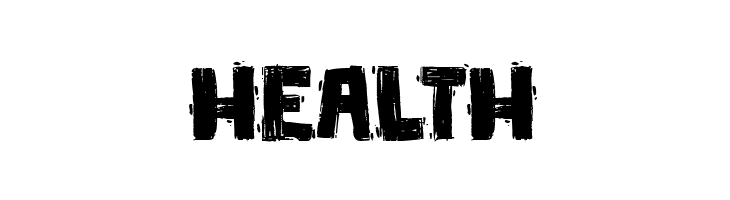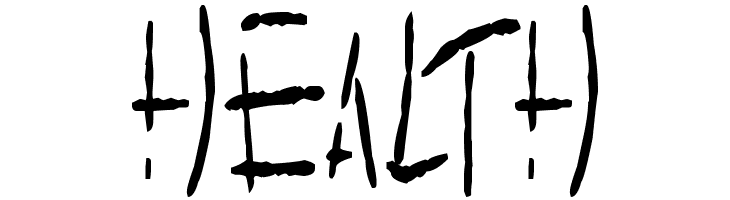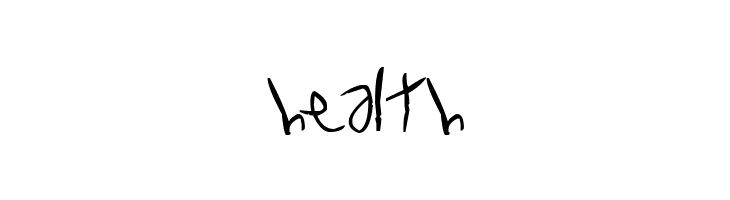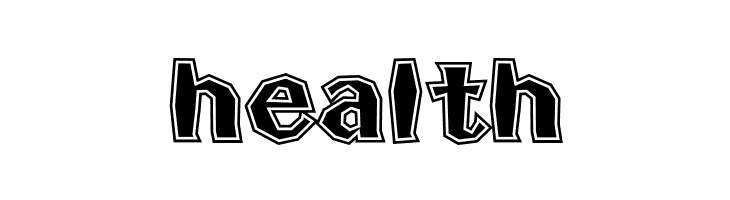
A bold, distressed font with a grunge aesthetic, perfect for edgy designs.
A bold, graffiti-inspired font with angular, edgy letterforms.
A bold, graffiti-inspired font with drips and splatters for an edgy, urban look.
A bold, italic font with sharp angles and a dynamic, edgy design.
A bold, angular font with a geometric and edgy style.
A bold, edgy font with sharp, jagged edges and a dynamic, graffiti-like style.
A jagged, hand-drawn font with an edgy, artistic style.
A dynamic, hand-drawn font with sharp, angular strokes and an edgy style.
A jagged, distressed font with an edgy, rebellious aesthetic.
A bold, outlined font with a dynamic, edgy style.